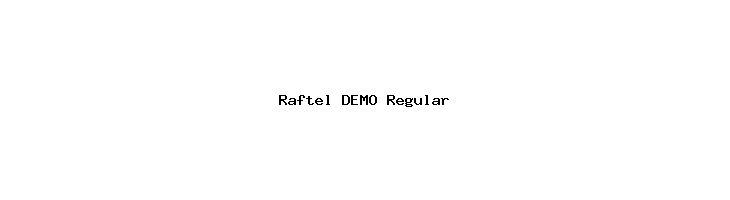
• Raftel DEMO Regular
• RageQuit_bold_easternblock_v1.2
A bold, angular font with an industrial, Eastern Bloc aesthetic.
• RageSoul Demo
A bold, decorative font with intricate flourishes and high contrast.
• RageSoul Demo Outline
An ornate, decorative outline font with elegant swirls and loops.
• Ragey
• Ragg Mopp NF